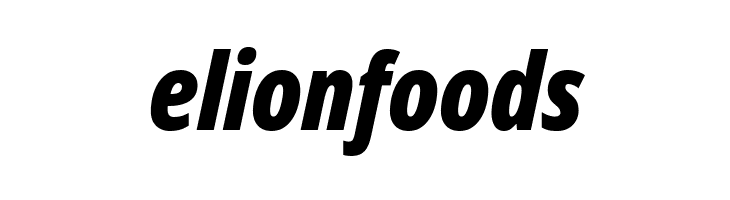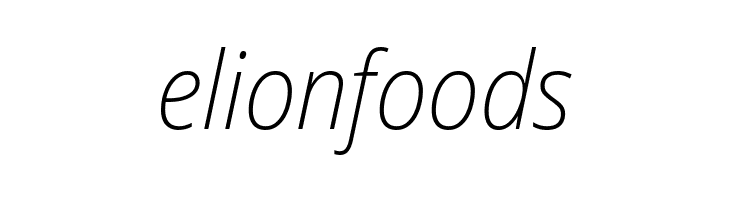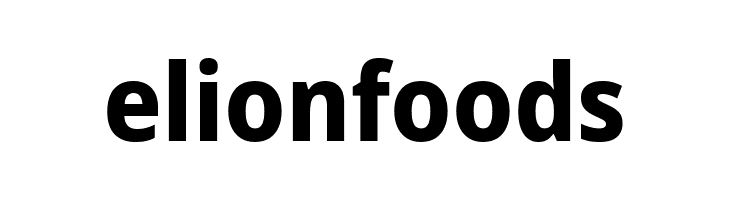
A sleek, extra light, italic, and extra condensed font with a modern and minimalist design.
A clean, modern, extra condensed sans-serif font with uniform strokes and minimal contrast.
A modern, extra condensed sans-serif font with semi-bold weight for versatile use.
A modern, extra light, extra condensed sans-serif font with a clean and streamlined appearance.
A bold, extra-condensed italic font with strong visual impact.
A sleek, modern, semi-condensed, extra light italic font with balanced spacing.
A modern, extra-condensed sans-serif font with thin strokes and a clean aesthetic.
A modern, extra condensed sans-serif font with a light and airy appearance.
A sleek, extra condensed, thin italic font with a modern and elegant design.
A modern, extra bold, semi-condensed sans-serif typeface with excellent readability.